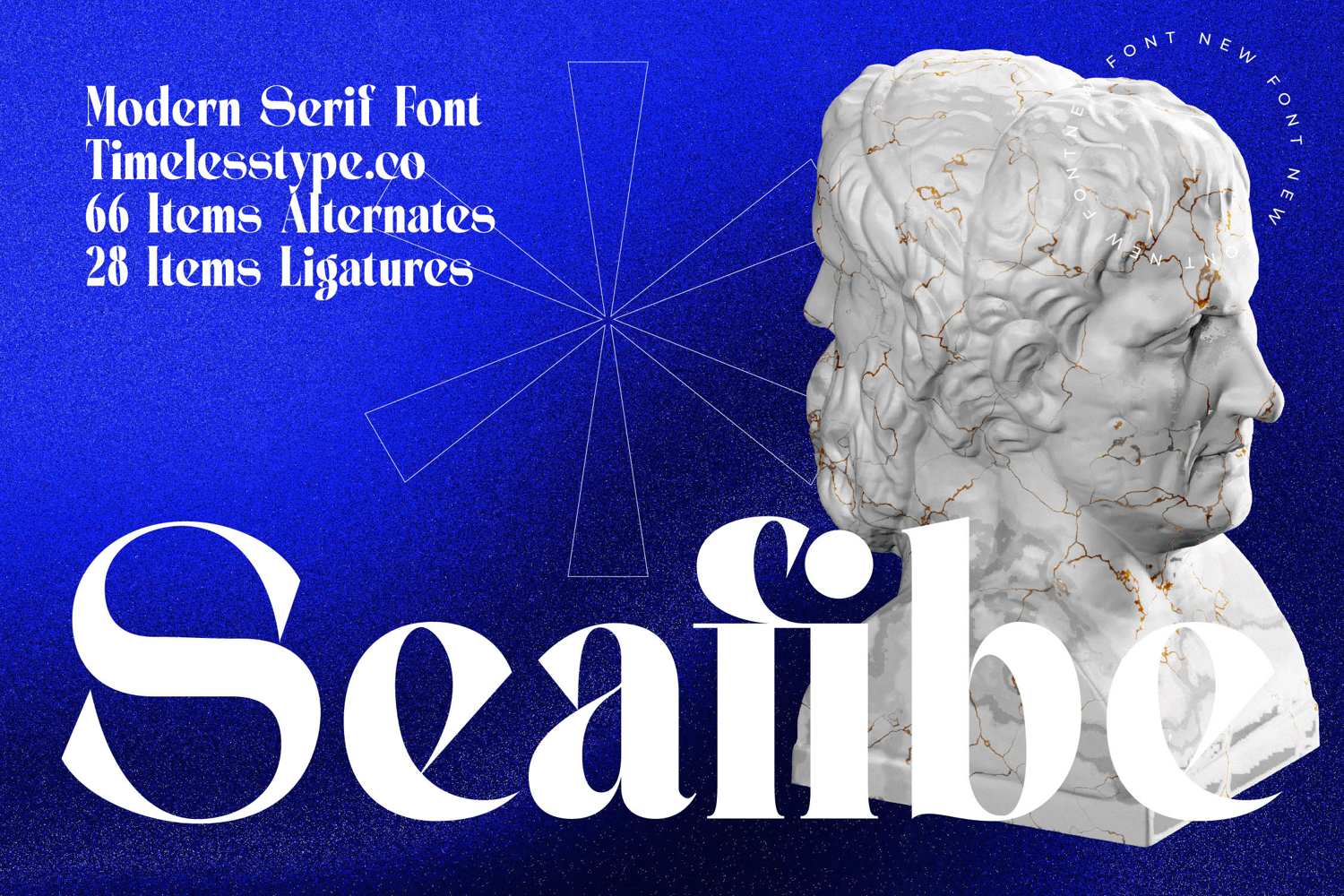
Seafibe - Modern Serif Font
Elevate your design projects with timeless sophistication found in Seafibe - Modern Serif Font. This striking typeface blends classical refinement with a distinct contemporary edge, characterized by its extreme high-contrast strokes and elegant, sweeping serifs. The dramatic thick-and-thin transitions command attention, ensuring that headlines and logos possess an unforgettable, upscale presence. This is more than a font; it is a statement of uncompromising quality.
Unlock unparalleled creative versatility with the robust feature set of Seafibe - Modern Serif Font. Included are 66 stylistic alternates and 28 items ligatures, meticulously crafted to allow deep customization. These OpenType features enable designers to tailor letterforms for optimal flow and unique branding solutions, transforming standard text into a bespoke typographic artwork. Achieve the perfect balance between readability and expressive grandeur.
Expand your brand's reach globally without sacrificing aesthetic consistency. With its extensive multilingual support, Seafibe - Modern Serif Font adapts seamlessly across global markets, making it incredibly versatile for international projects. This comprehensive language capability ensures your message resonates clearly, whether you are designing content for European, American, or other international audiences, maintaining its polished, professional impact everywhere.
Secure a distinct competitive advantage by choosing Seafibe - Modern Serif Font for key deliverables. It is perfectly suited for luxury branding, high-end fashion editorial layouts, bespoke packaging, and premium corporate identities where perceived value is paramount. Use this font to convey exclusivity and heritage, ensuring your visual identity communicates instant authority and sophisticated, modern elegance.